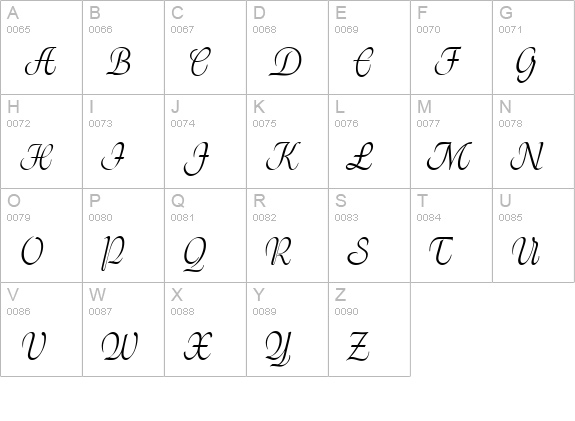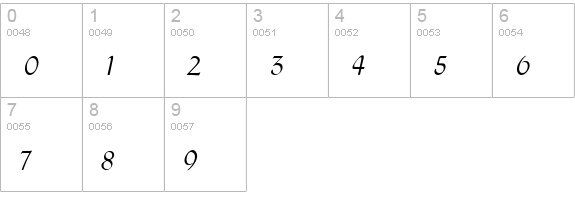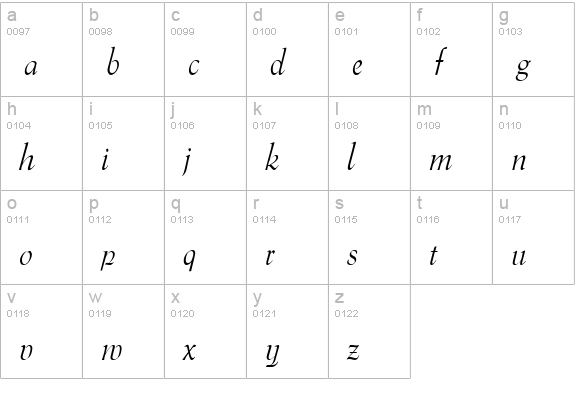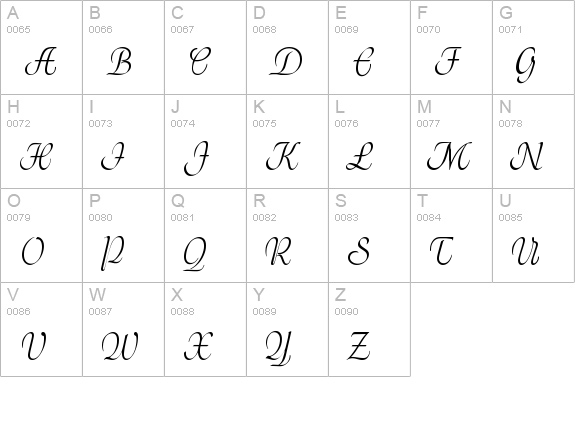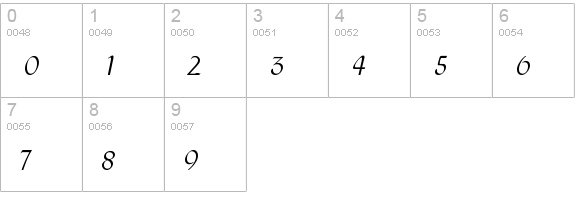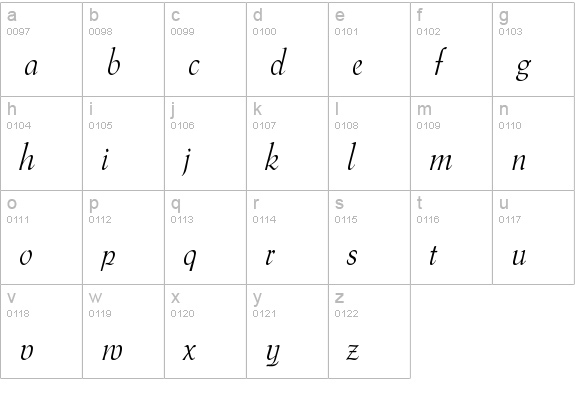
Menuet script Font Details
Menuet Script is a stunning and elegant font that exudes sophistication and charm. Its fluid and graceful strokes create a sense of beauty and grace, making it perfect for a variety of design projects. Whether you're looking to add a touch of elegance to wedding invitations, branding materials, or social media graphics, Menuet Script is the perfect choice. The flowing ligatures and swashes of Menuet Script add a unique and stylish flair to any project, while still maintaining readability and versatility. This free font is a must-have for any designer looking to elevate their work with a touch of timeless elegance. You can easily download Menuet Script for free at FontsMarket.com, where you'll find a wide selection of high-quality fonts to enhance your design projects. Don't miss out on the opportunity to add this exquisite font to your collection and elevate your designs to the next level.